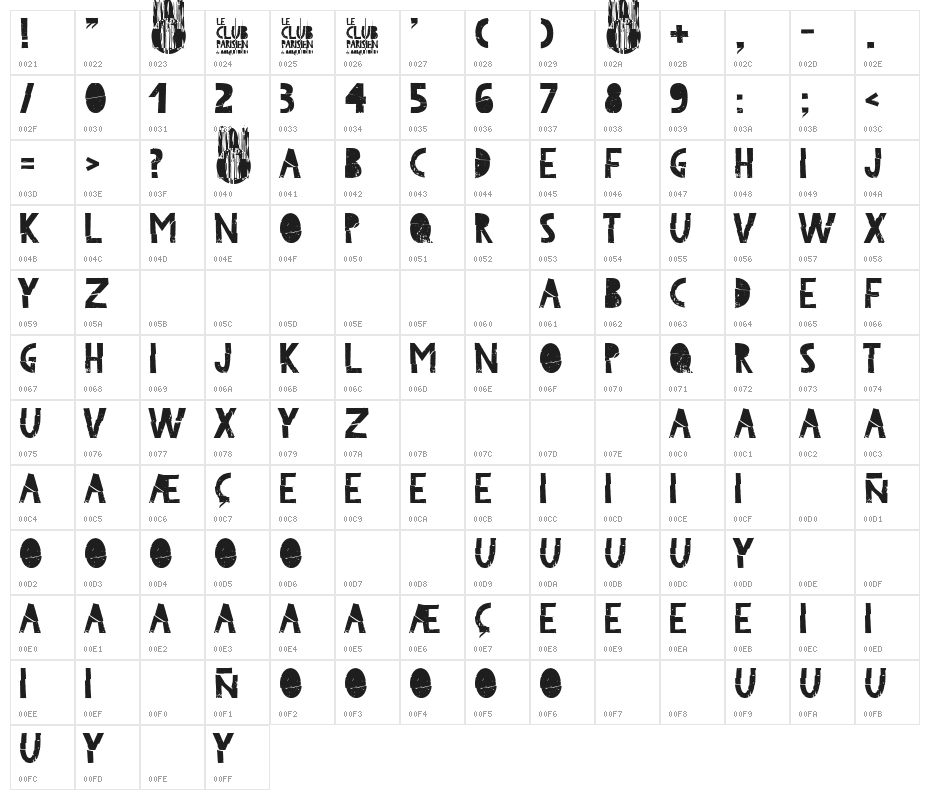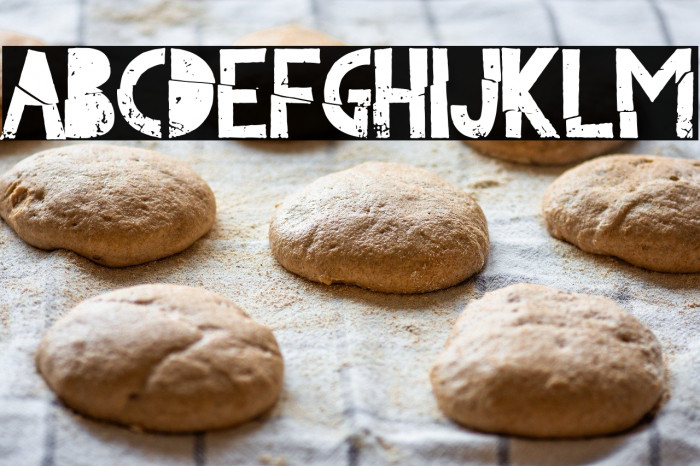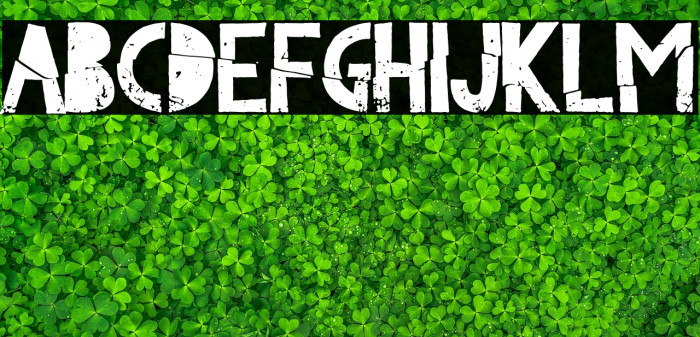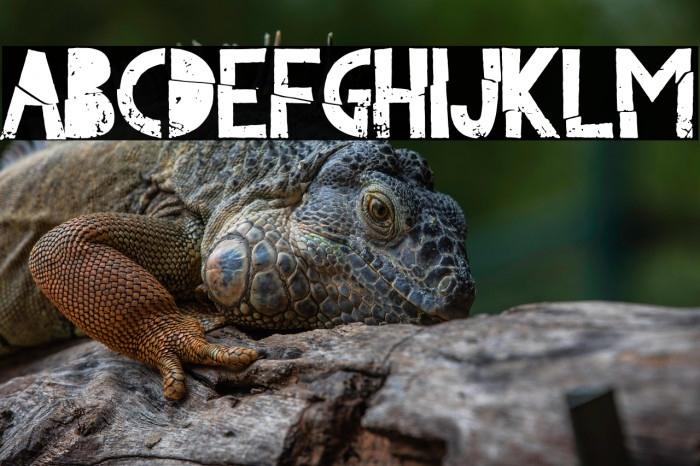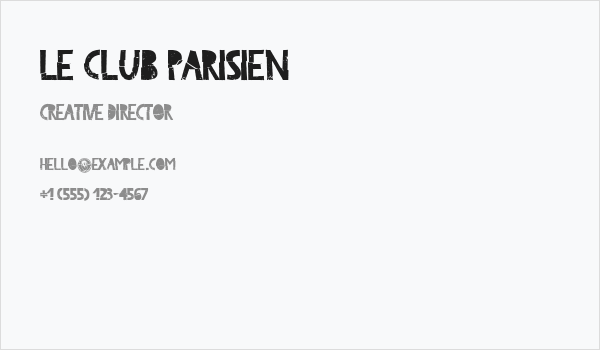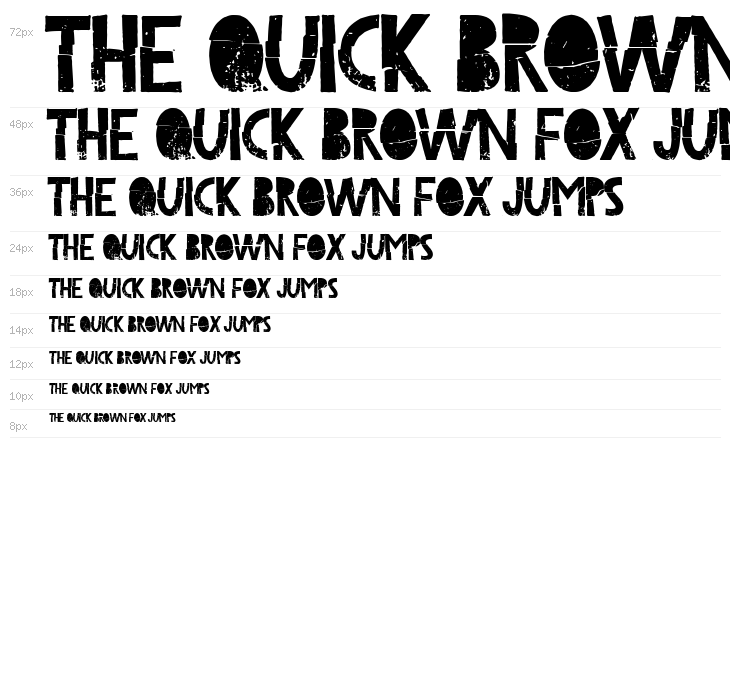
Le Club Parisien Font
Le Club Parisien Description
This font exhibits a bold and distressed style, characterized by its rough, textured appearance that mimics a worn or weathered look. The uppercase and lowercase letters maintain a consistent width, with sharp angles and geometric shapes. The numerals and special characters follow the same rugged aesthetic, making the font suitable for creating a vintage or industrial feel. Its unique design is eye-catching and adds a sense of authenticity and character to any project.
| Proposed Projects | Ideal for posters, album covers, branding for vintage-themed businesses, or any project requiring a bold, eye-catching typeface. |